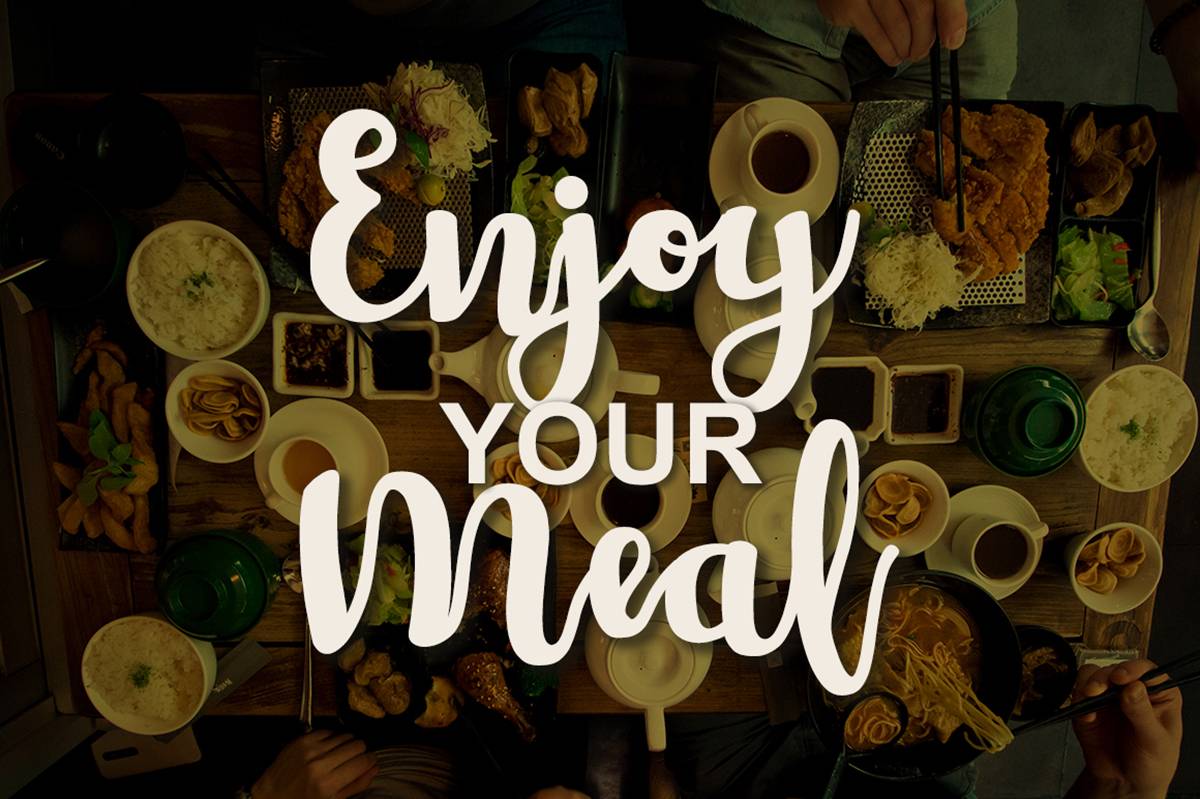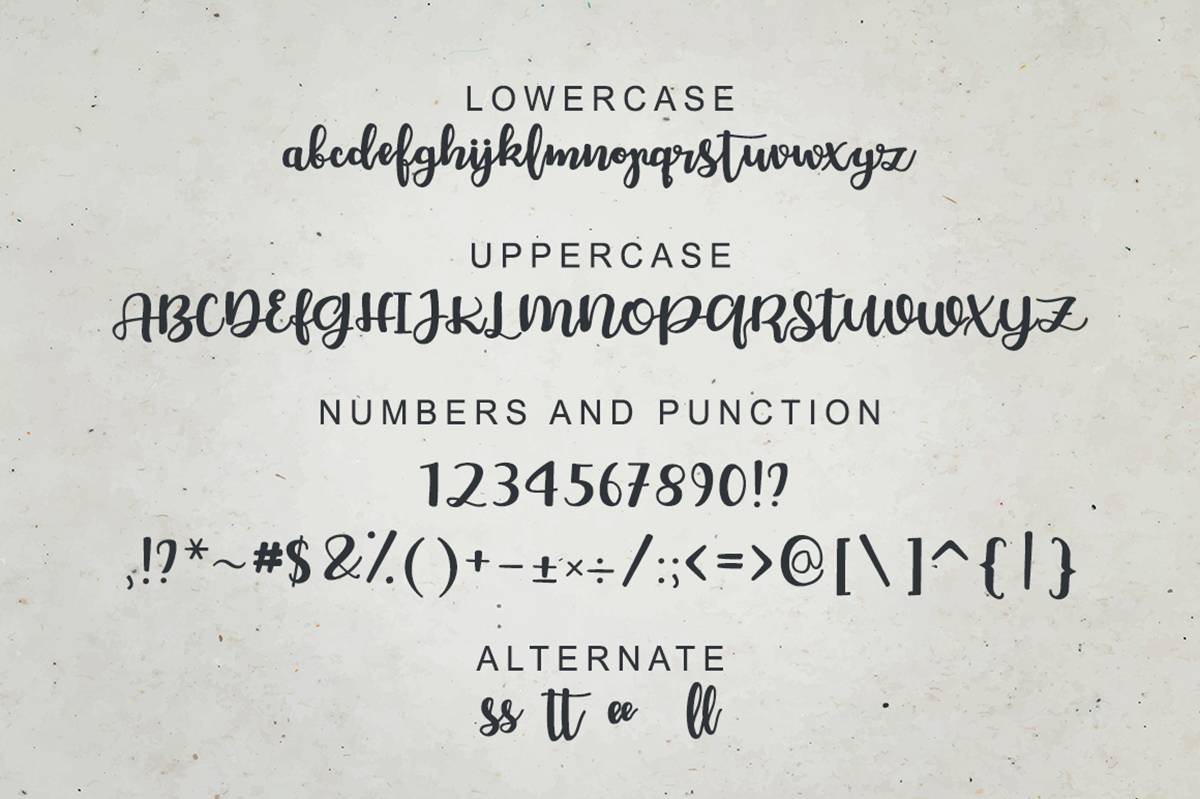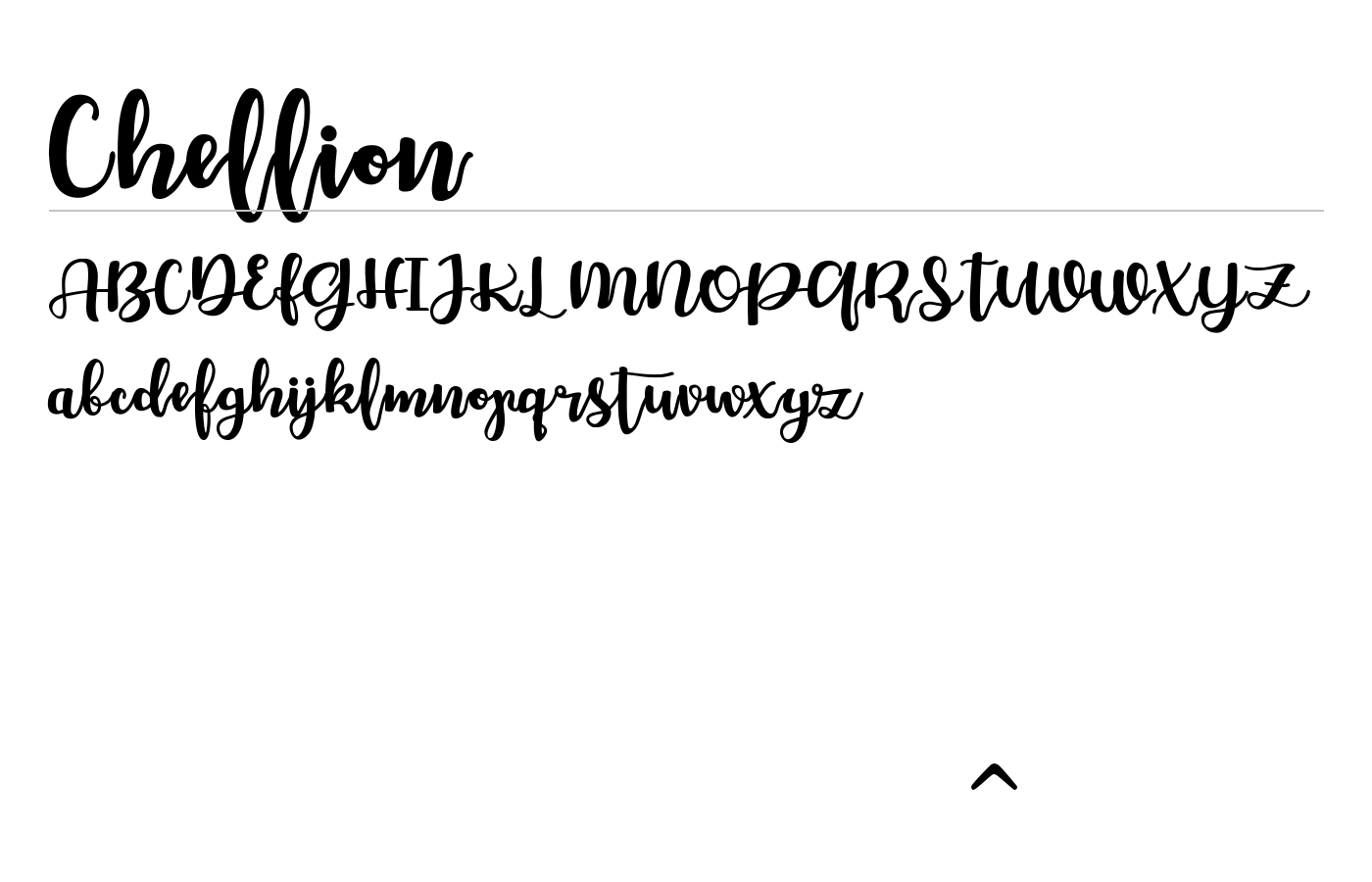
Chellion is a playful and elegant script font featuring fluid, hand-drawn strokes with a medium weight and lively character shapes. Its connected letterforms and decorative swashes create a warm, inviting feel, making it ideal for branding, invitations, and creative headlines where a personal, stylish touch is desired. This font works well in projects that aim to convey charm and sophistication with a casual, artistic flair.
Chellion Font
About Chellion Font